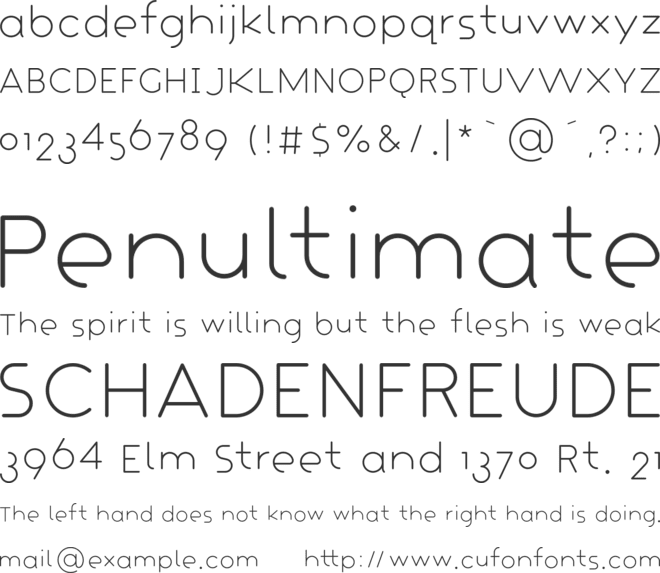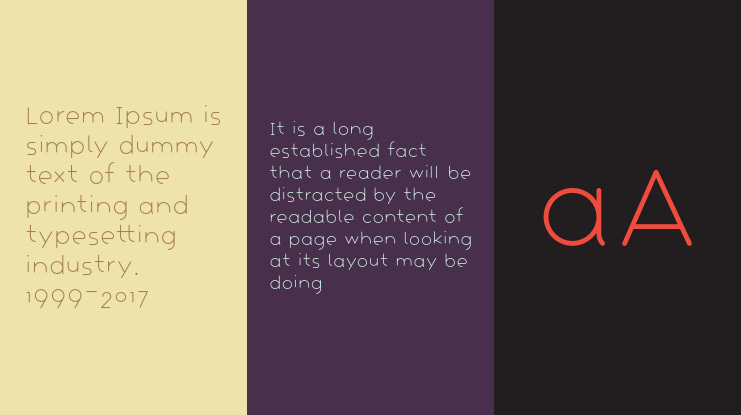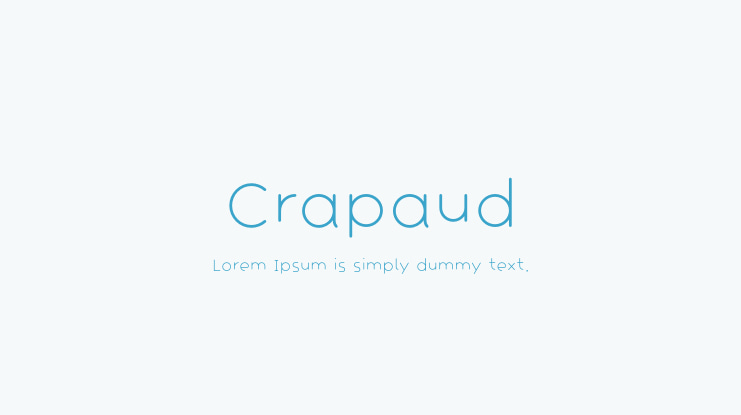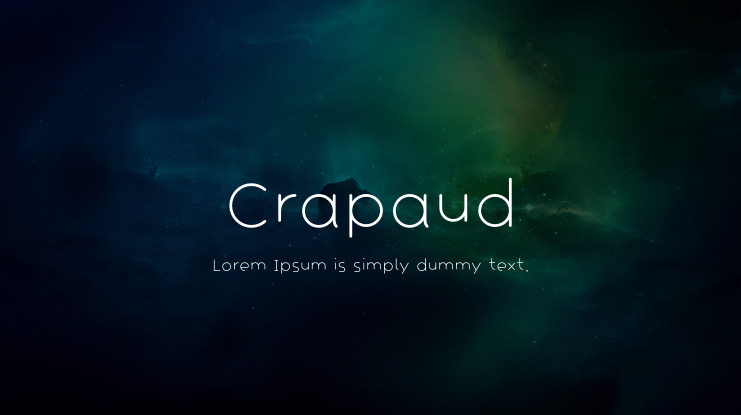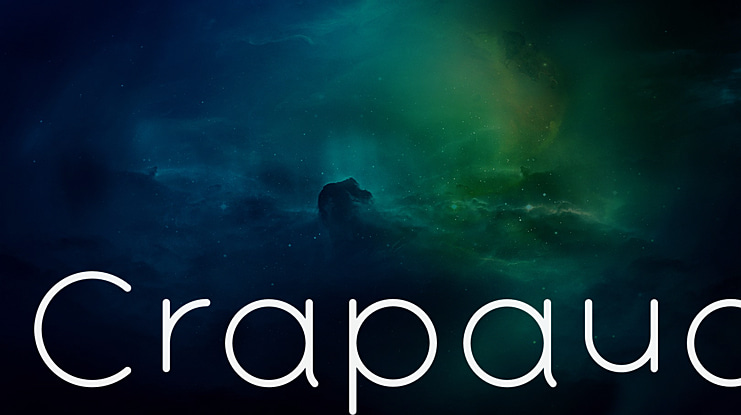
Crapaud Font Family
Emile byeongSu Kim
Crapaud sans is a geometric typeface containing 2 weight, 2 style with bold and light. This font looks perfect on headlines, logotype, branding and a lot more!